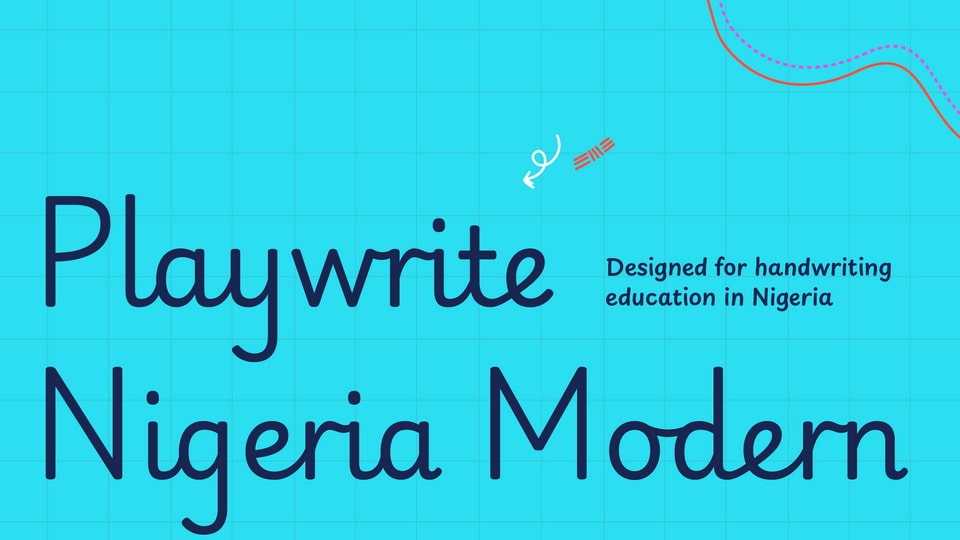
Download Playwrite Nigeria font, a typeface engine that allows the creation of primary school cursive fonts. This upright modern cursive is modeled closely after the British Nelson Handwriting model, featuring simplified print-style capital letters
Designer: TypeTogether